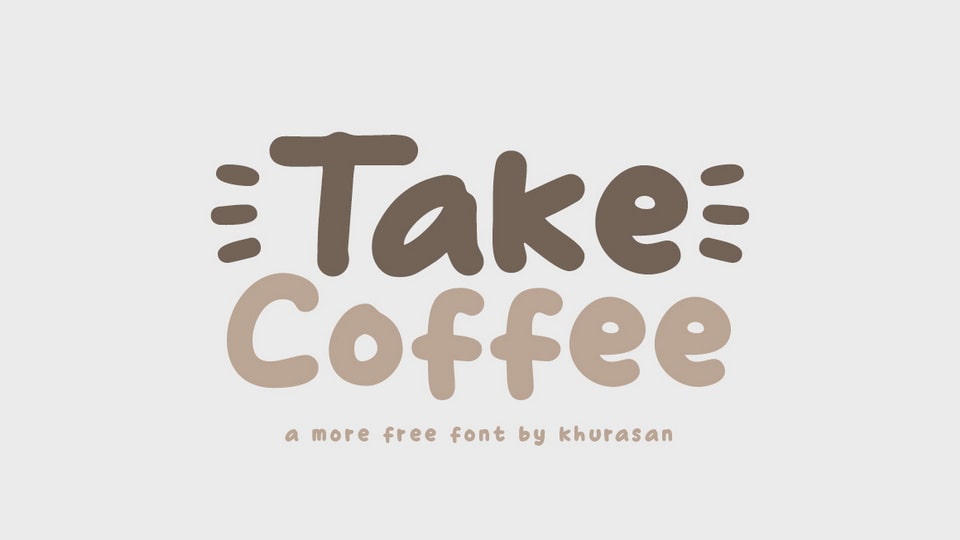
Download Take Coffee font, a casual and playful handwritten typeface. Take Coffe is perfect for posters, logos, magazines, book covers, banners, and many more lovely designs!